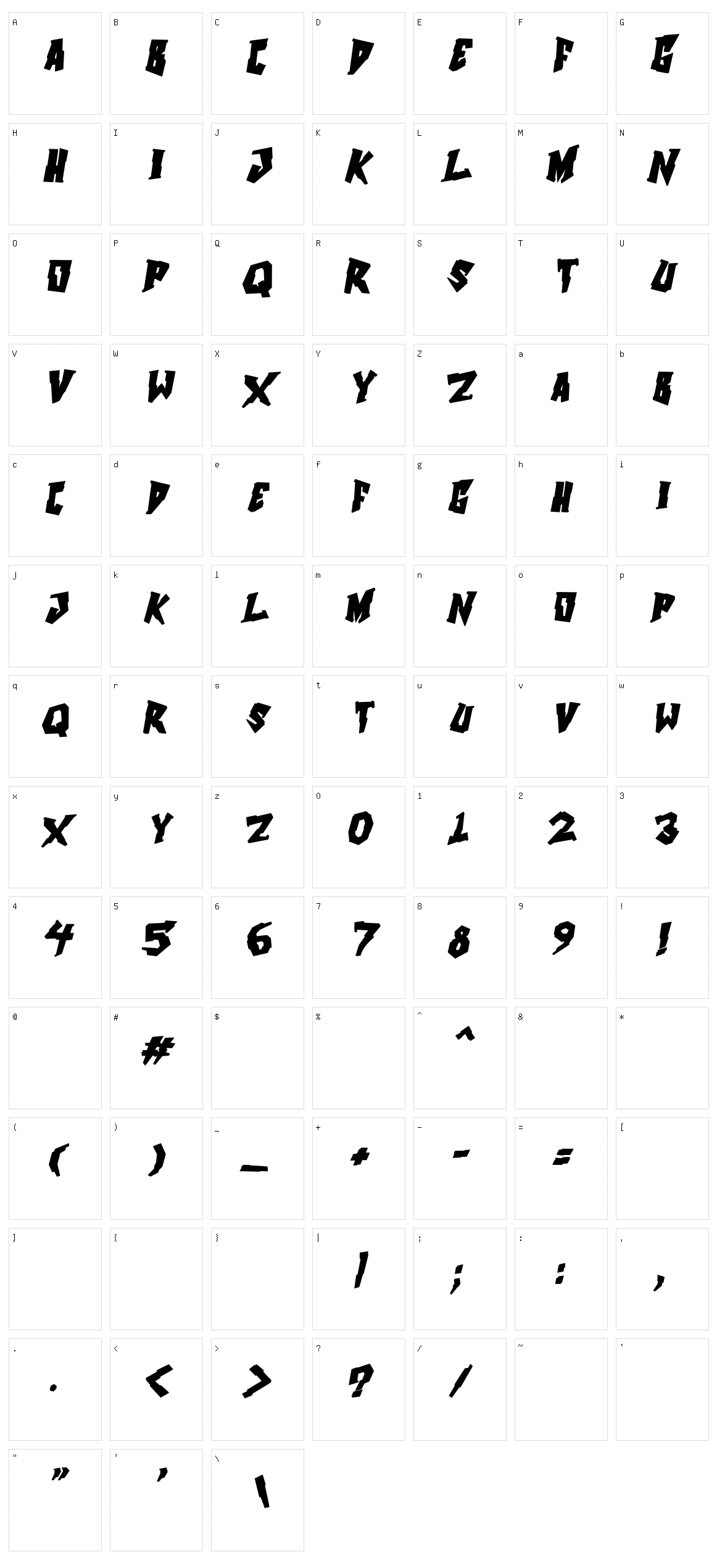
The free font Mechapunk is carefully designed by PressGang Studios, showcasing a thoughtful balance of creativity and usability and falls under the Cartoon font style. When you download the ZIP file, it contains only 530.04 KB of font files, making it lightweight and quick to download. Please review the license details below to understand permitted usage and distribution rights. If license information is not available, we recommend using this font for personal projects only or contacting the author directly for commercial usage permissions.